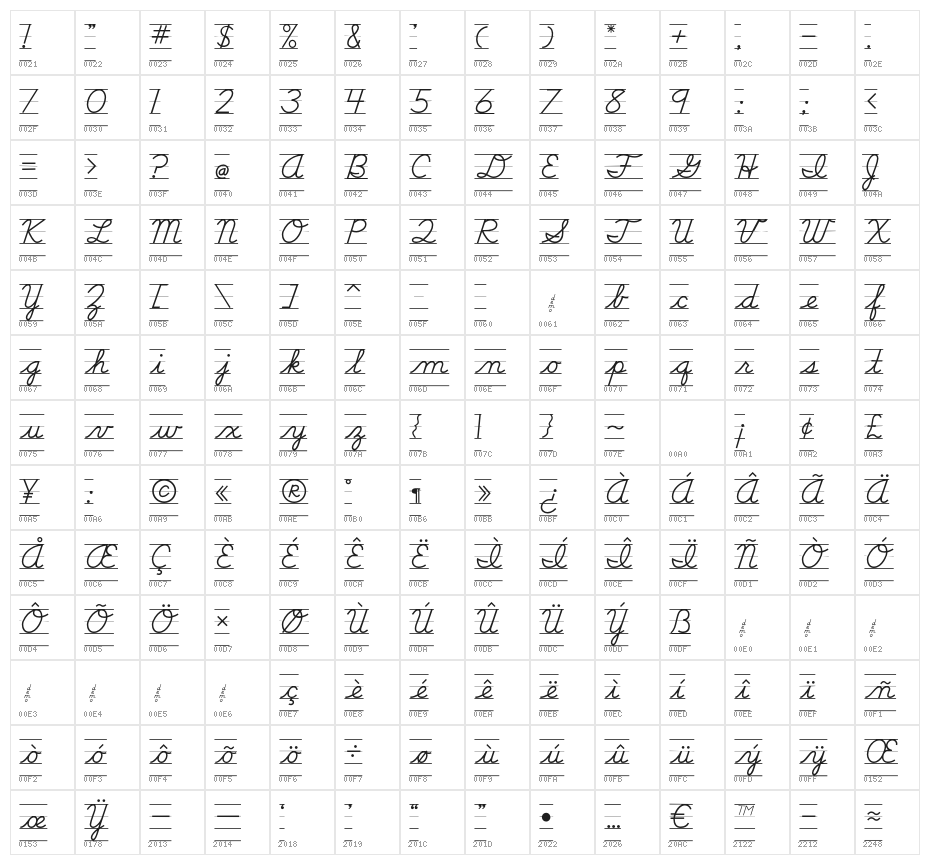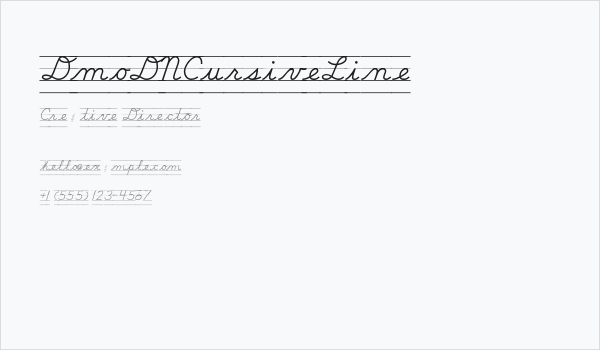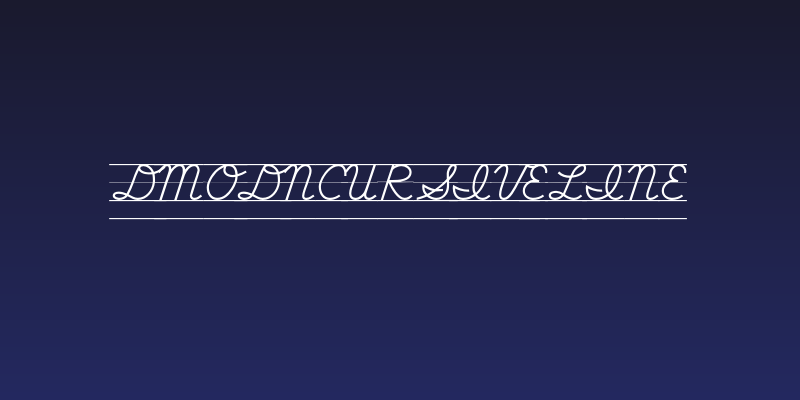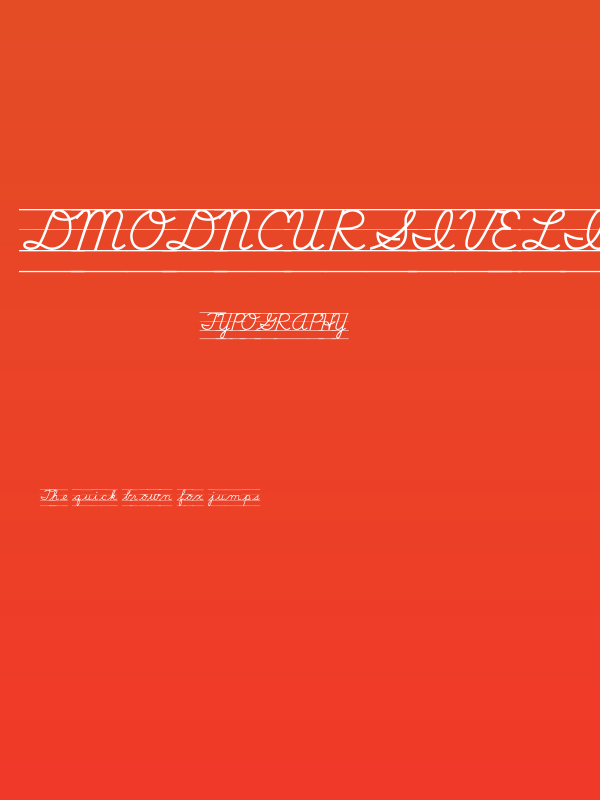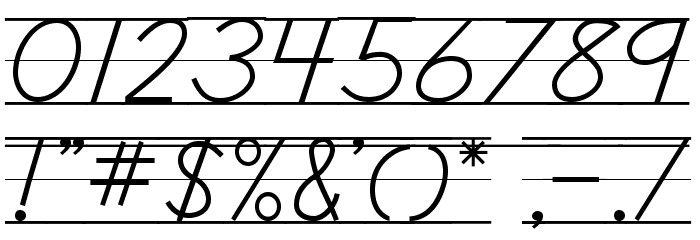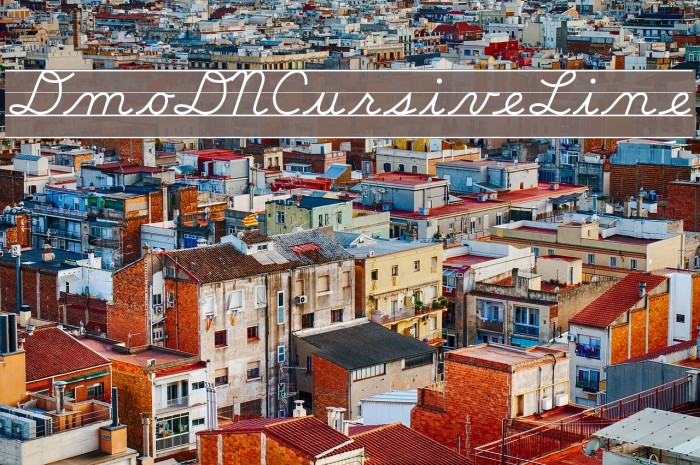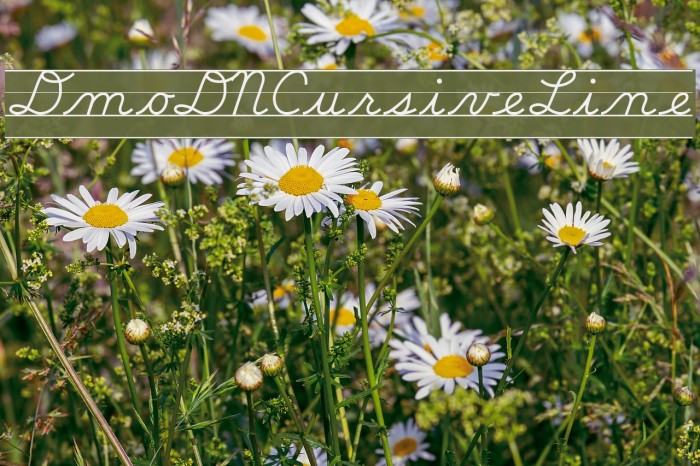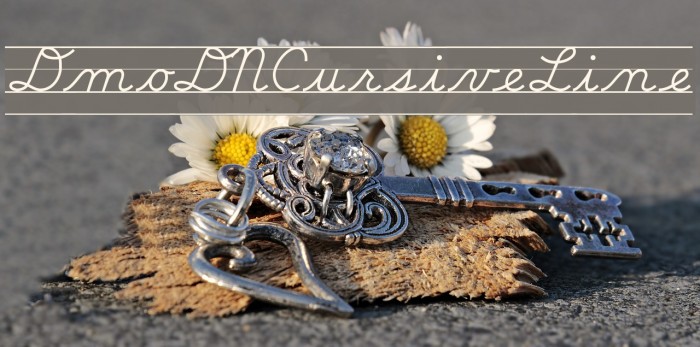
DmoDNCursiveLine Font
DmoDNCursiveLine Description
This elegant cursive font features smooth, flowing lines that mimic traditional handwriting. The uppercase letters are gracefully looped and connected, while the lowercase letters maintain a consistent slant, enhancing the script's fluidity. Numbers and special characters are designed with the same attention to detail, ensuring a cohesive appearance. The font's overall style is reminiscent of classic penmanship, making it suitable for projects that require a personal touch. Its balanced character spacing and medium contrast in stroke thickness contribute to its readability and aesthetic appeal.
| Overall Style | Classic |
| Use Case | Logos, Invitations, Personal Correspondence |
| Proposed Projects | Ideal for wedding invitations, personal letters, greeting cards, and branding materials that require a touch of elegance. |